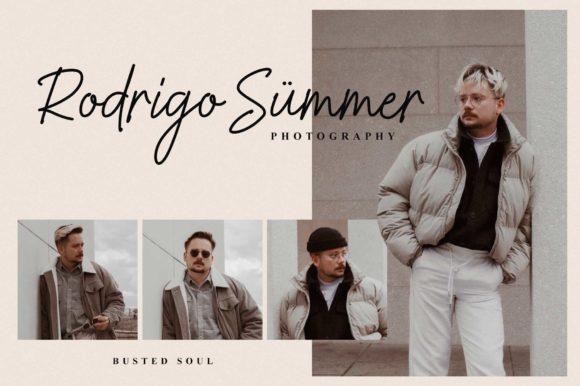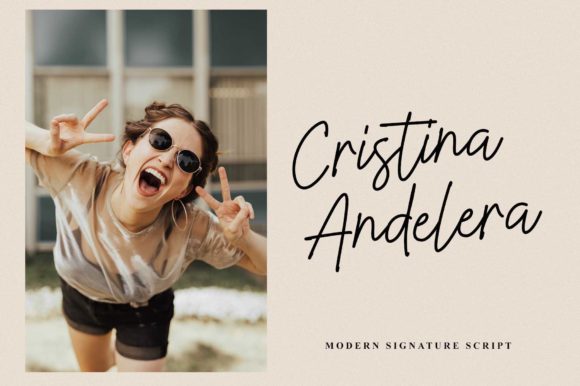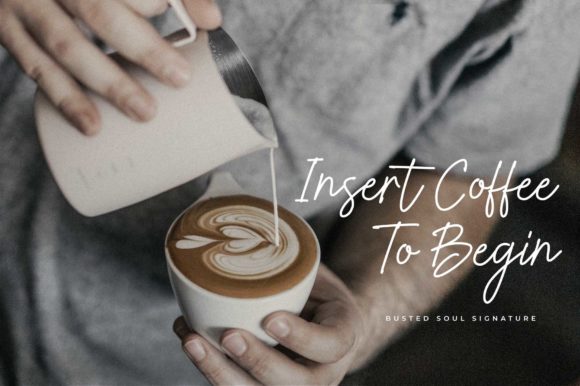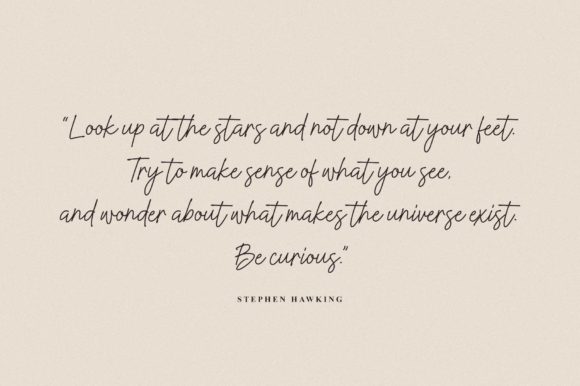
About Busted Soul Font
Busted Soul is a flowing handwritten font, described by an elegant touch, perfect for your favorite projects. It looks stunning on wedding invitations, thank you cards, quotes, greeting cards, logos, business cards and every other design which needs a handwritten touch.